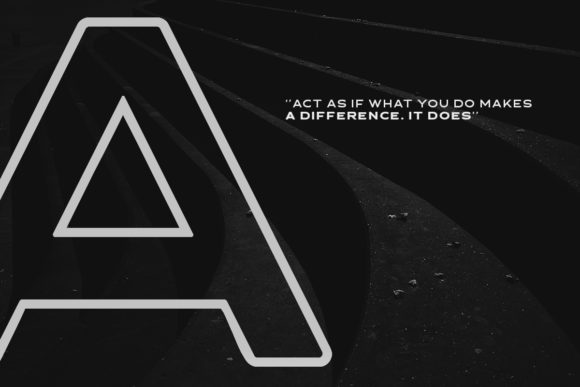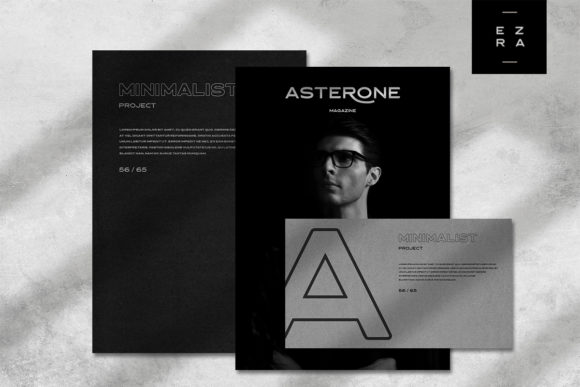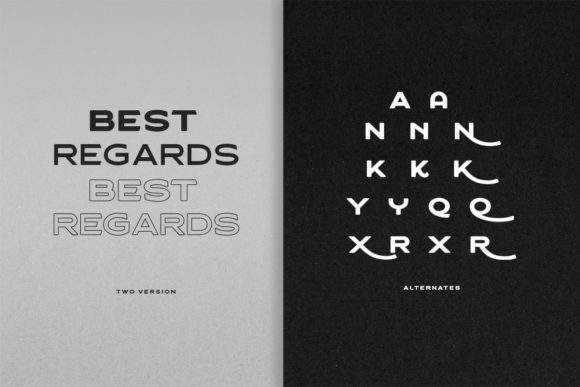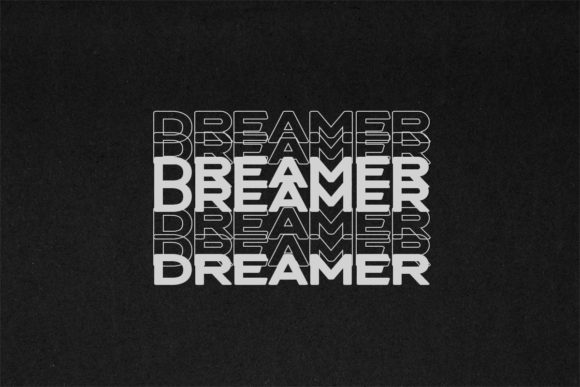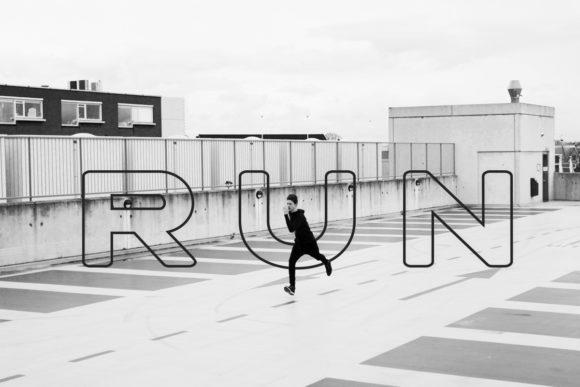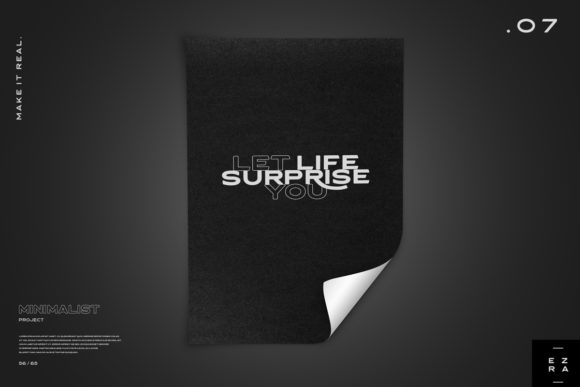
The Designer’s Delight: Exploring the Sophistication of Asterone Font
I’ll never forget the time I was working on a branding project for a high-end fashion client. I had spent hours perfecting the logo design, but something was off. The font I had chosen just wasn’t giving me the sophisticated feel I was going for. I scoured the internet for the perfect sans serif font, and that’s when I stumbled upon Asterone. It was love at first sight! ✨
Asterone is a modern and clean sans serif font that will add a touch of elegance to any design project. Its sleek lines and curves make it perfect for a wide range of applications, from logos and branding to packaging and digital media.
What I Love About Asterone
- ✅ Clean and modern design: Asterone’s simple yet sophisticated design makes it perfect for modern brands and designs.
- ✨ Highly legible: The font’s clear lines and curves ensure that it remains legible even at small sizes.
- 🎉 Versatile: Asterone can be used for a wide range of applications, from digital media to print materials.
While Asterone is an excellent font, it’s not perfect. Here are a few things to keep in mind:
- 🤔 Limited character set: Asterone doesn’t have an extensive character set, so it may not be suitable for projects that require a wide range of special characters.
- ⚠️ Not ideal for body text: While Asterone is legible, it’s not the best choice for body text due to its clean and modern design. It’s better suited for headings and titles.
The Designer Behind Asterone: A Backstory
Asterone was designed by a team of typographers who wanted to create a font that would embody the spirit of modern design. Inspired by the sleek lines and curves of urban landscapes, Asterone was born. The design team spent countless hours perfecting the font’s every detail, from its clean lines to its elegant curves.
| Font Name | Asterone Font |
| Author | letterhend |
Q: What is Asterone font?
A: Asterone is a modern and clean sans serif font designed for a wide range of applications.
Q: Is Asterone suitable for body text?
A: While Asterone is legible, it’s not ideal for body text due to its clean and modern design. It’s better suited for headings and titles.
Q: Is Asterone available in different weights and styles?
A: Yes, Asterone comes in a range of weights and styles, making it perfect for a wide range of design applications.